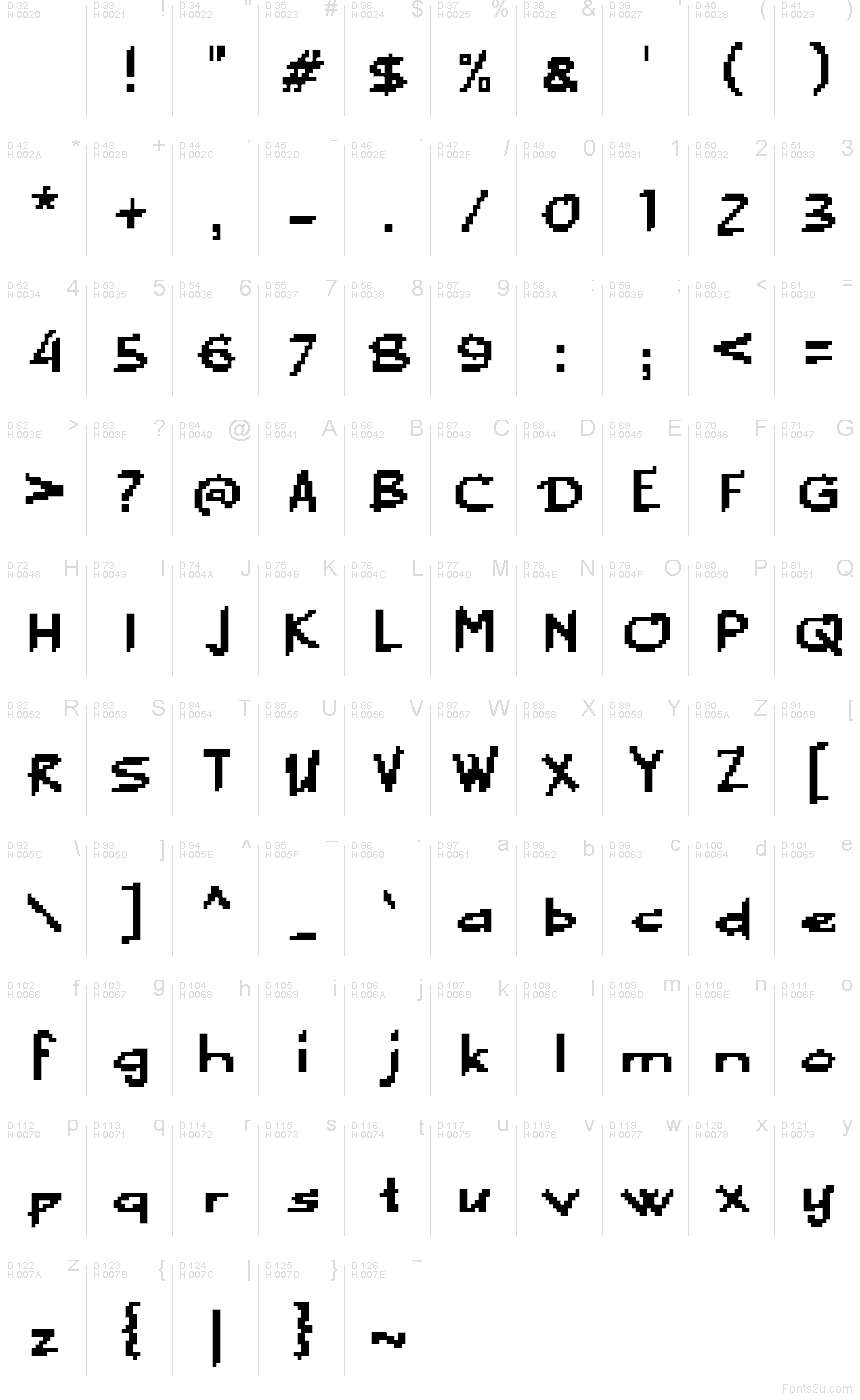
Qablasco
Qablasco font by wepfont.com is a free pixelated bitmap typeface that captures the grit and charm of early screen graphics. Each letter is built from chunky square steps, giving curves a jagged, arcade feel while keeping words surprisingly readable. The rhythm is tight and energetic, so titles snap into place like tiles on a grid, with a bold, black-on-light punch that feels straight out of an 8‑bit console.
Using Qablasco, you can give game menus, stream overlays, chiptune album covers, posters, stickers, and retro‑tech branding that authentic pixel buzz. This free font shines at larger sizes where every block can breathe; pair it with a simple sans serif for UI labels or descriptions to keep your layouts clear and balanced.